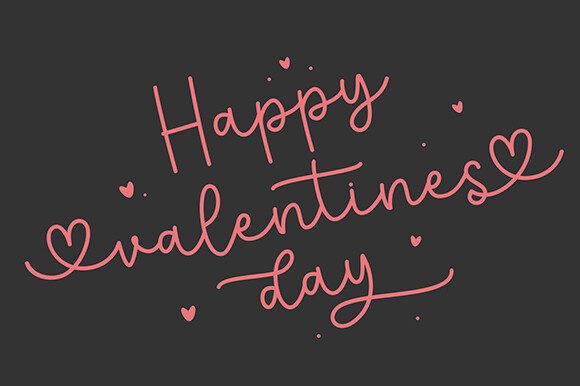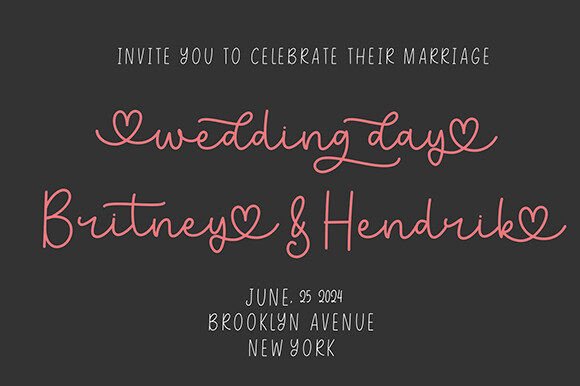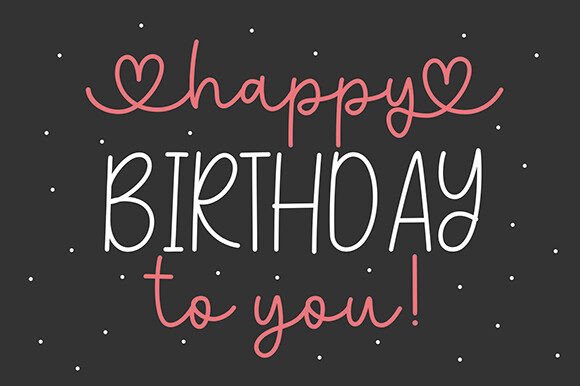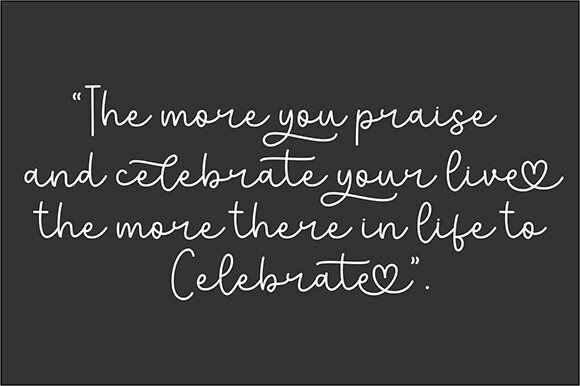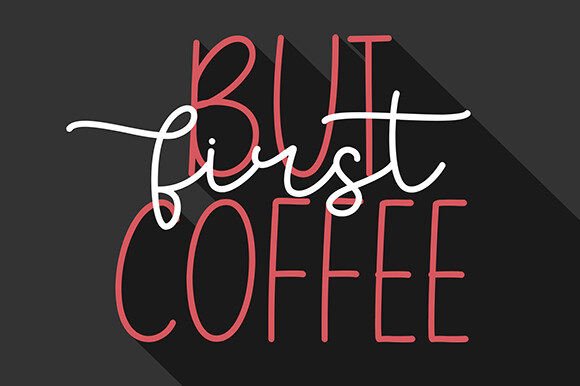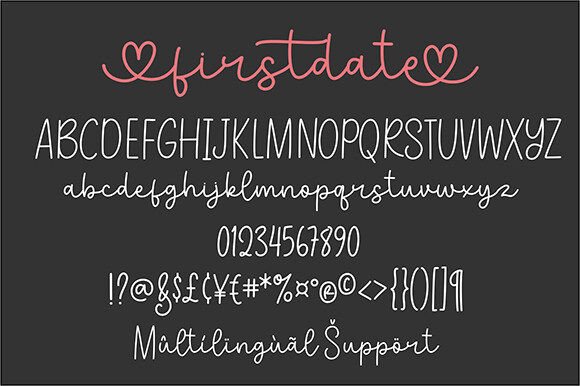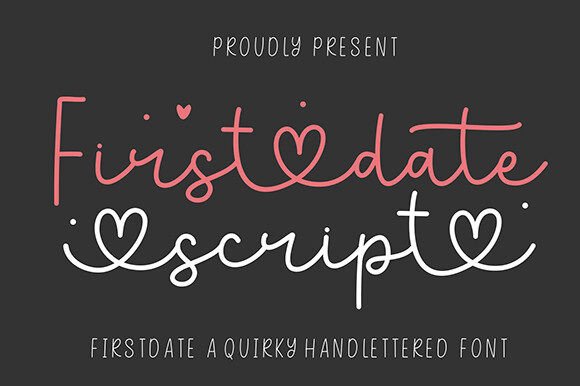
Introducing Firstdate Font: The Quirky Script Font for Creative Expression
Are you a designer, crafter, or creative looking for a unique and playful font to elevate your projects? Look no further than Firstdate Font, a quirky script font that’s perfect for a wide range of applications. From crafting and branding to wedding designs and social media posts, Firstdate Font is the ideal choice for anyone seeking to add a touch of personality and whimsy to their work.
What Makes Firstdate Font Special?
Firstdate Font is a carefully crafted script font that’s designed to bring a sense of fun and playfulness to your projects. Its quirky and charming lettering style makes it perfect for a variety of creative applications, including:
- Crafting: Add a personal touch to your handmade crafts, such as knitting patterns, sewing projects, or scrapbooking.
- Branding: Create a unique and memorable brand identity with Firstdate Font, perfect for logos, business cards, or packaging.
- Invitations and Stationery: Make your invitations, greeting cards, and stationery stand out with this beautiful script font.
- Wedding Designs: Add a touch of romance and whimsy to your wedding designs, including invitations, programs, and decorations.
- Social Media Posts: Elevate your social media posts with a dash of personality and style.
- Advertisements: Create eye-catching ads with Firstdate Font, perfect for print or digital media.
- Product Packaging: Add a personal touch to your product packaging and make it stand out on store shelves.
- Labels: Create custom labels for your products or gifts with this beautiful script font.
- Posters: Design stunning posters for events, promotions, or advertising with Firstdate Font.
- Photography: Add a touch of elegance and sophistication to your photography with Firstdate Font, perfect for watermarks or captions.
Why Choose Firstdate Font?
So why choose Firstdate Font for your creative projects? Here are just a few reasons:
- Unique and Quirky Style: Firstdate Font offers a one-of-a-kind script font that’s sure to make your projects stand out.
- Versatile: This font is perfect for a wide range of applications, from crafting and branding to wedding designs and social media posts.
- High-Quality Design: Firstdate Font is carefully crafted with attention to detail, ensuring a high-quality design that’s perfect for professional projects.
If you’re looking for a quirky and charming script font to elevate your creative projects, look no further than Firstdate Font. With its unique style, versatility, and technical features, this font is perfect for designers, crafters, and creatives of all kinds. Download Firstdate Font today and add a touch of personality and whimsy to your work!